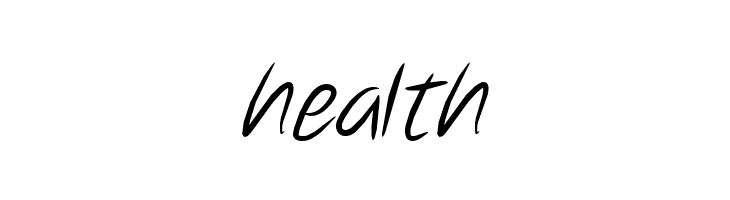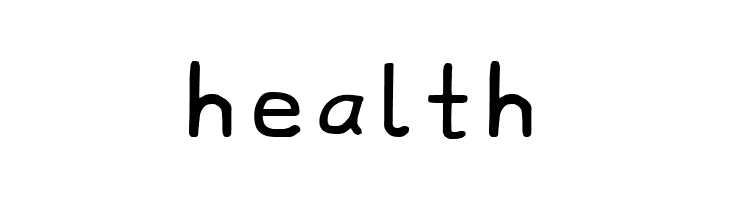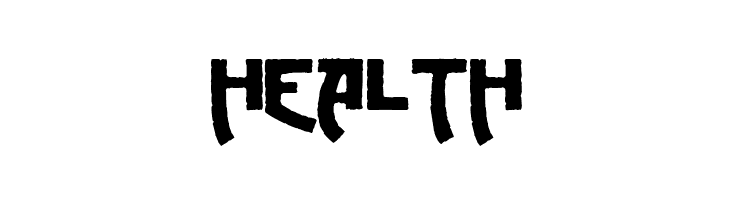
• Nofhistica
A graceful script font with fluid, cursive strokes and elegant curves.
• Relasi-SmoothishDEMO
A playful, bold font with smooth, rounded characters and dynamic stroke variations.
• Against History
A dynamic, handwritten font with an energetic and playful style.
• Machis Demo
An elegant script font with flowing, interconnected letters and calligraphic style.
• WhisperNightDemo
A bold, dripping font perfect for spooky and horror-themed designs.
• Haghisty_DEMO
An elegant script font with decorative swirls and modern flair.
• Aaqheella
An elegant script font with flowing, cursive lines and sophisticated flourishes.
• Dottinghise
A dynamic and elegant script font with fluid, cursive strokes.
• Sweet Whisper Regular
A lively and expressive script font with fluid, dynamic strokes.
• SweetWhisper-Regular
A playful and elegant script font with flowing, connected letters.
• AgashiSignatureFont
A fluid, elegant script font with a natural handwritten style.
• ghisel honey Italic
An elegant, flowing script font with dynamic contrast and interconnected letterforms.
• ghisel honey
An elegant, flowing script font with decorative flourishes.
• Historical-Sans
A bold, modern sans-serif font with clean lines and geometric simplicity.
• Historical
An elegant, flowing script font with ornate flourishes and a traditional calligraphic style.
• HistoriaSky
A lively and dynamic script font with fluid, connected letterforms.
• HisquinsDEMO
A modern, decorative font with sharp angles and high contrast.
• Whisper
A flowing, cursive handwritten font with dynamic stroke variations.
• Bagnolhet
An elegant script font with flowing, cursive strokes and sophisticated style.
• HistoryValentine
A playful, handwritten script font with bold, connected letters.
• Rindu Ghisel